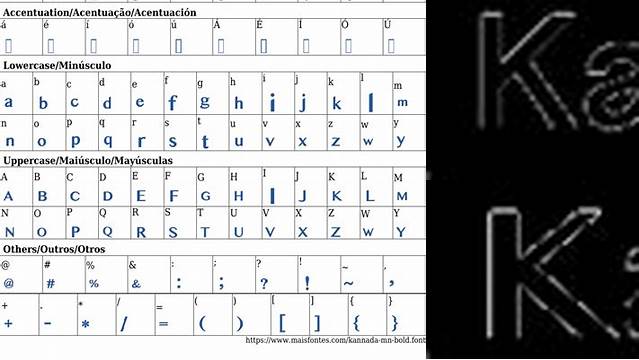
Kannada MN Bold Font: Free Download & Usage Guide
Hey guys! Are you on the lookout for the Kannada MN Bold font? Well, you've landed in the right place! In today's digital world, typography plays a crucial role in how we communicate visually. A font like Kannada MN Bold can really elevate your designs, making them stand out with its distinctive and readable style. Whether you're designing a poster, creating a website, or working on a presentation, the right font can make all the difference. Kannada MN Bold, with its clear and strong strokes, is particularly well-suited for projects that require readability and a touch of elegance. In this comprehensive guide, we'll dive deep into everything you need to know about this fantastic font, including where to find it for free download, how to install it, and tips for using it effectively in your projects. So, let's jump right in and explore the world of Kannada MN Bold!
What is Kannada MN Bold Font?
So, what exactly is the Kannada MN Bold font? To really appreciate its value, let’s break it down. Kannada MN Bold is a typeface specifically designed to support the Kannada script, which is used to write the Kannada language, spoken predominantly in the state of Karnataka in India. The "MN" in the name often refers to the foundry or the designer behind the font, although specific details can sometimes be elusive due to the age and distribution methods of certain fonts. What sets the Bold variant apart is its heavier weight, which makes it ideal for headlines, titles, and any text that needs to grab attention. Think about it – when you want a word or phrase to really pop, you naturally go for a bolder style, right? That’s exactly what this font offers. It’s designed to be both legible and visually impactful, ensuring your message is conveyed clearly and effectively. The Kannada script itself is beautifully complex, with a rich history and a unique calligraphic tradition. Fonts like Kannada MN Bold help to preserve and promote this script in the digital age, allowing designers and content creators to produce stunning visuals while respecting the cultural heritage of the language. This font is not just about aesthetics; it's about functionality too. The bold weight ensures that the characters remain distinct and readable, even at smaller sizes or on screens with lower resolutions. This makes it a versatile choice for a wide range of applications, from print media to digital displays. Whether you're working on a poster, a website, or a simple document, Kannada MN Bold can bring a touch of sophistication and clarity to your text. Plus, using a well-designed font like this shows a level of professionalism and attention to detail that your audience will appreciate. It’s these little touches that can really elevate your work and make it stand out from the crowd. So, next time you’re looking for a font that combines cultural richness with practical usability, remember Kannada MN Bold – it might just be the perfect choice for your project!
Why Use Kannada MN Bold?
Now, let's talk about why you should consider using Kannada MN Bold. There are several compelling reasons why this font is a fantastic choice for various projects. First and foremost, its readability is a major advantage. The bold weight ensures that the text stands out, making it easy to read even from a distance or on smaller screens. This is crucial for things like headings, titles, and any text that you want to immediately catch the reader's eye. Think about websites, posters, and presentations – you need a font that can deliver your message clearly and quickly, and Kannada MN Bold does just that. Secondly, this font brings a touch of elegance and professionalism to your work. The Kannada script has a unique and beautiful character, and when combined with the bold styling, it creates a visually appealing aesthetic. This can be particularly beneficial if you're working on projects that require a sophisticated look, such as branding materials, invitations, or formal documents. Using a well-designed font like Kannada MN Bold can instantly elevate the overall appearance of your work and make it look more polished. Another reason to use this font is its cultural relevance. If you're working on content related to Karnataka or the Kannada language, using Kannada MN Bold shows respect for the culture and heritage. It demonstrates that you've taken the time to choose a font that is appropriate and authentic for your project. This can be especially important when creating content for a specific audience, as it helps to build trust and credibility. Furthermore, Kannada MN Bold is versatile enough to be used in a wide range of applications. Whether you're designing a website, creating a poster, writing a report, or developing a mobile app, this font can adapt to your needs. Its clear and strong design makes it suitable for both print and digital media, ensuring that your text looks great no matter where it's displayed. In addition to its practical benefits, using Kannada MN Bold can also add a unique flair to your designs. While many common fonts are widely used and familiar, Kannada MN Bold offers a distinctive look that can help your work stand out from the crowd. This can be particularly advantageous if you're trying to create a memorable brand identity or make a lasting impression with your visuals. So, if you're looking for a font that combines readability, elegance, cultural relevance, and versatility, Kannada MN Bold is definitely worth considering. It’s a powerful tool that can help you communicate effectively and create stunning designs that resonate with your audience.
Tips for Using Kannada MN Bold Effectively
So, you've got Kannada MN Bold installed and ready to go – fantastic! Now, let's talk about how to use it effectively in your projects. Just like any design element, the way you use a font can make a big difference in the overall look and feel of your work. Here are some tips to help you get the most out of Kannada MN Bold. First and foremost, consider the context of your design. Kannada MN Bold is a strong and legible font, making it great for headings, titles, and short bursts of text. However, it might not be the best choice for long paragraphs of body text, as the bold weight can become tiring to read over extended periods. Think about where your text will be displayed – on a website, a poster, a document – and choose the font size and style accordingly. For headlines, you can go bigger and bolder to grab attention. For body text, you might want to pair Kannada MN Bold with a lighter, more readable font for a balanced look. Pairing fonts is an art in itself. When choosing a secondary font to go with Kannada MN Bold, look for something that complements its style without competing with it. A clean, sans-serif font like Arial or Helvetica can work well, as can a more traditional serif font like Times New Roman. The key is to create a visual hierarchy, where the headings stand out and the body text is easy to read. Don't be afraid to experiment with different combinations to see what looks best for your project. Another important tip is to pay attention to spacing and kerning. Kerning refers to the space between individual letters, while spacing refers to the overall spacing between words and lines. Adjusting these settings can significantly improve the readability and visual appeal of your text. If the letters are too close together, the text can look cramped and difficult to read. If they're too far apart, the text can appear disjointed. Most design software allows you to fine-tune these settings, so take the time to get them just right. Color also plays a crucial role in how your font appears. Consider the background color of your design and choose a font color that provides good contrast. Dark text on a light background is generally the easiest to read, but you can also experiment with lighter text on a dark background for a more dramatic effect. Just make sure that the text remains legible, no matter what color you choose. Finally, remember to use Kannada MN Bold sparingly. While it's a beautiful and impactful font, using it too much can dilute its effect. Reserve it for key elements like headings and titles, and use other fonts for the bulk of your text. This will help to create a visually appealing and well-balanced design that effectively communicates your message. So, go ahead and put these tips into practice – you'll be amazed at how much of a difference they can make!